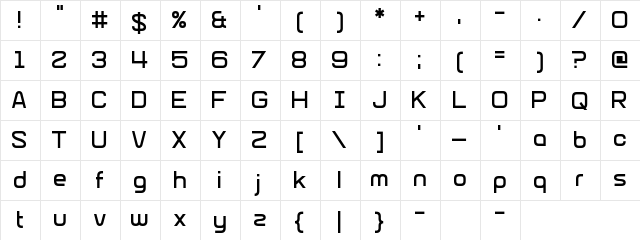
Glitch Slap Regular
Design Context for Glitch Slap Typeface
Glitch Slap takes a measured approach to typography — its balanced proportions and neutral character make it a reliable workhorse for both digital and print work.